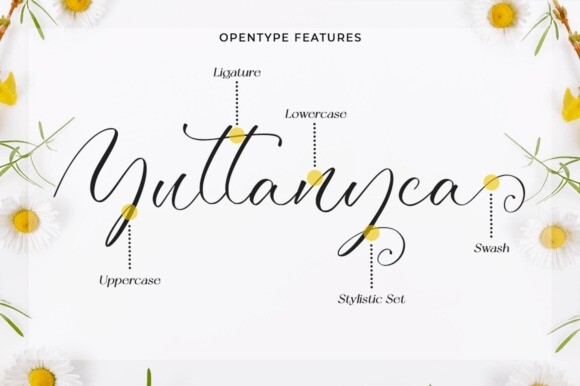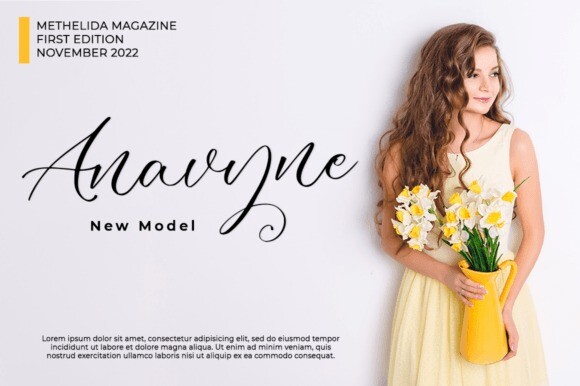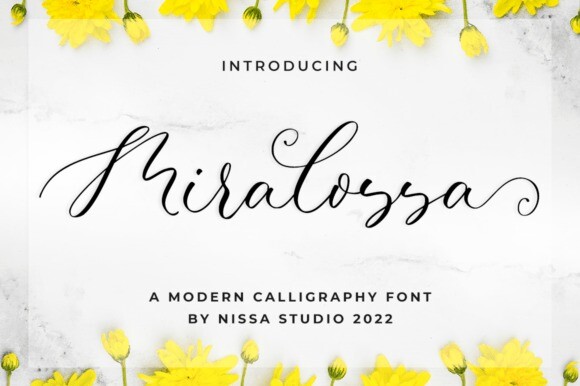
Miralossa Font
Designer: NissaStudio
Miralossa Font is a beautiful script font. Its refined style will give an elegant and modern look to any of your creative projects. Add it to your logos, branding, invitations, stationery, wedding designs, social media posts, and many more, and make them outstanding!